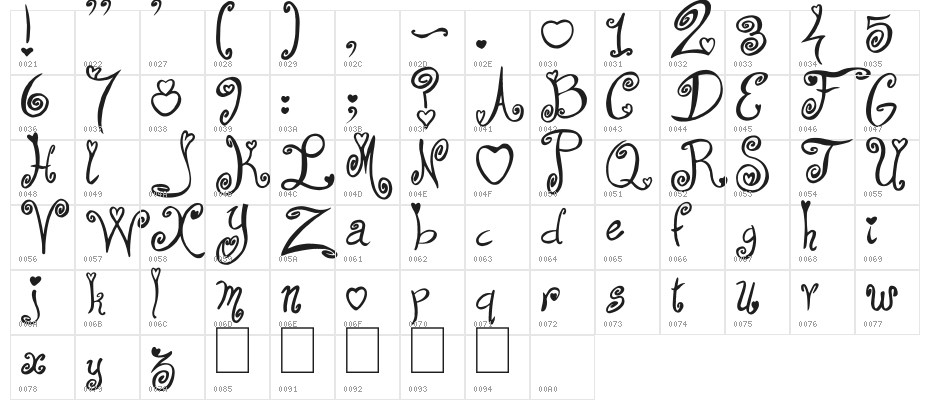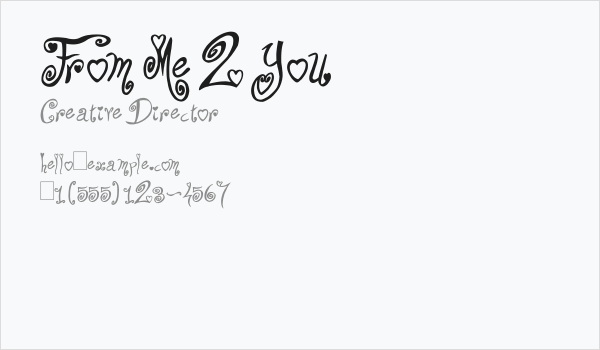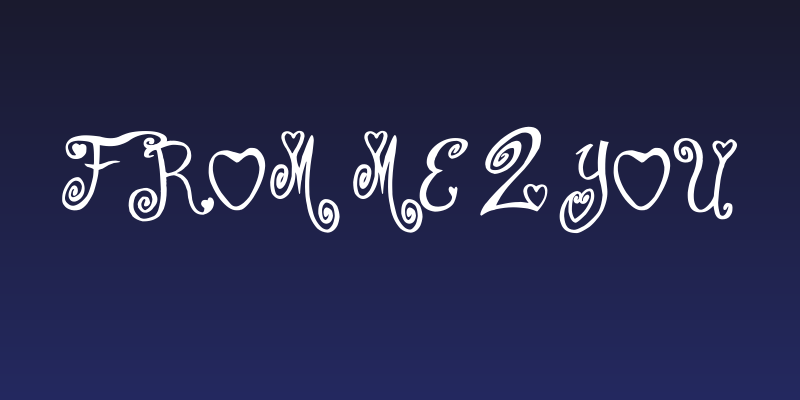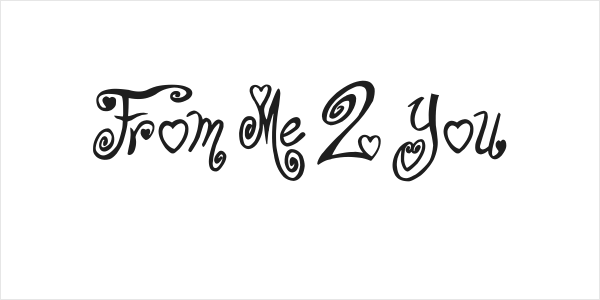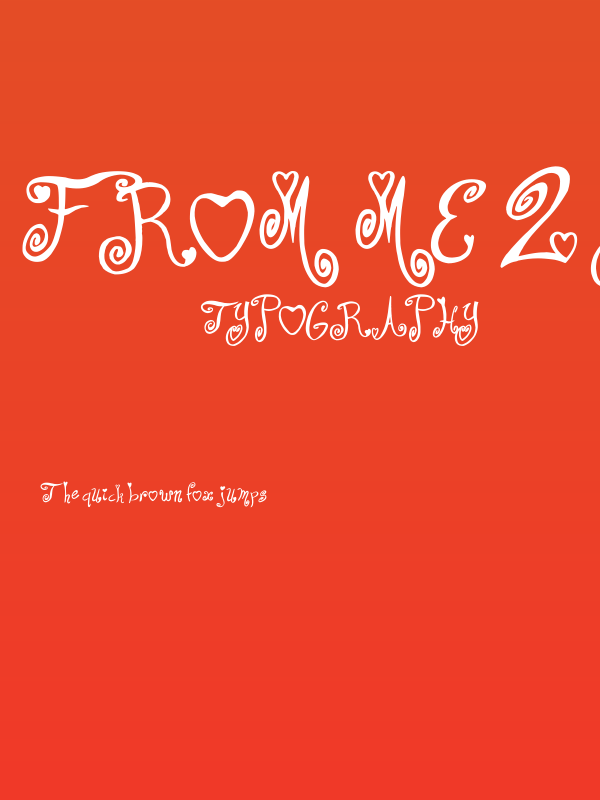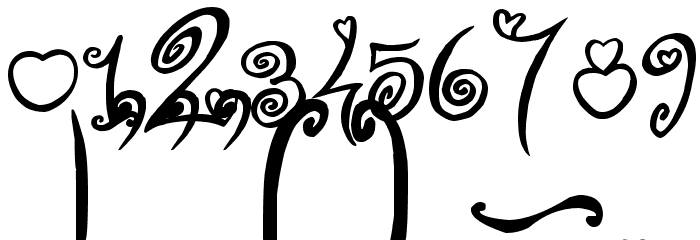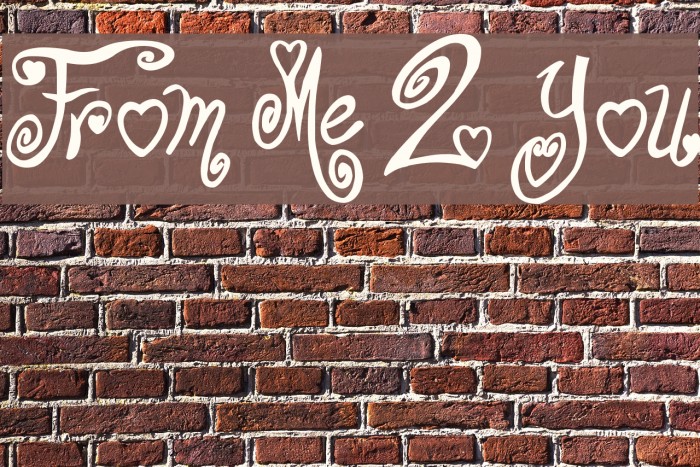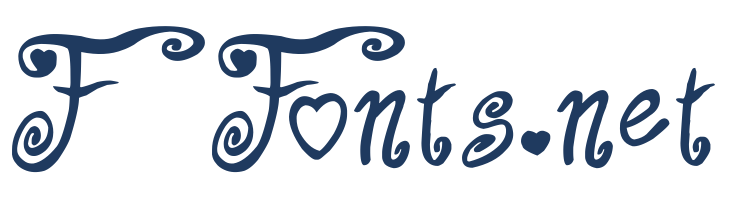
From Me 2 You Font
From Me 2 You Description
This whimsical and playful font features a decorative style with intricate swirls and heart motifs integrated into the letterforms. The uppercase letters are bold and ornate, with each character showcasing unique embellishments that add a sense of fun and creativity. The lowercase letters maintain a similar decorative flair, with some characters incorporating heart shapes as part of their design. The numerals are equally stylized, featuring swirling patterns that match the overall theme. This font is perfect for projects that require a touch of whimsy and charm, such as invitations, greeting cards, or playful branding.
| Proposed Projects | Ideal for invitations, greeting cards, playful branding, and creative projects. |